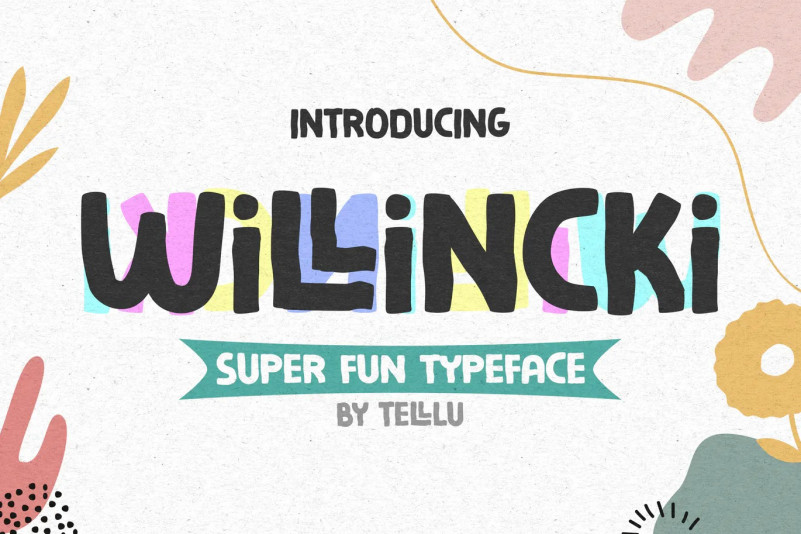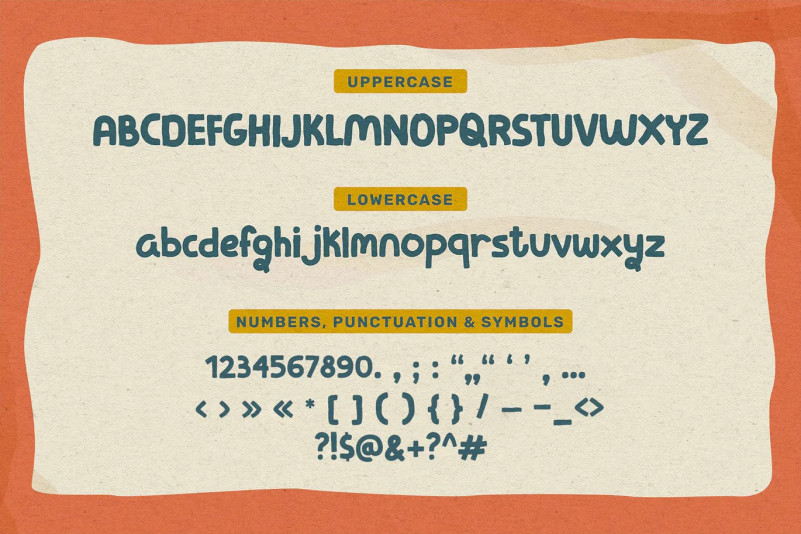
Willincki Font
With very fun and friendly character. A casual typeface that could bring strong message through your words. Perfect for any science or school projects, books cover, or presentation title.